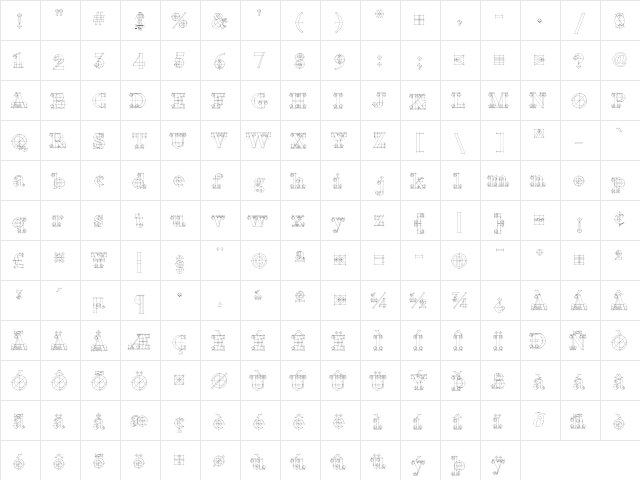
Anatomy Guides Regular
Design Context for Anatomy Guides Typeface
Anatomy Guides is a composed and adaptable typeface that performs quietly and consistently across a wide range of design contexts.